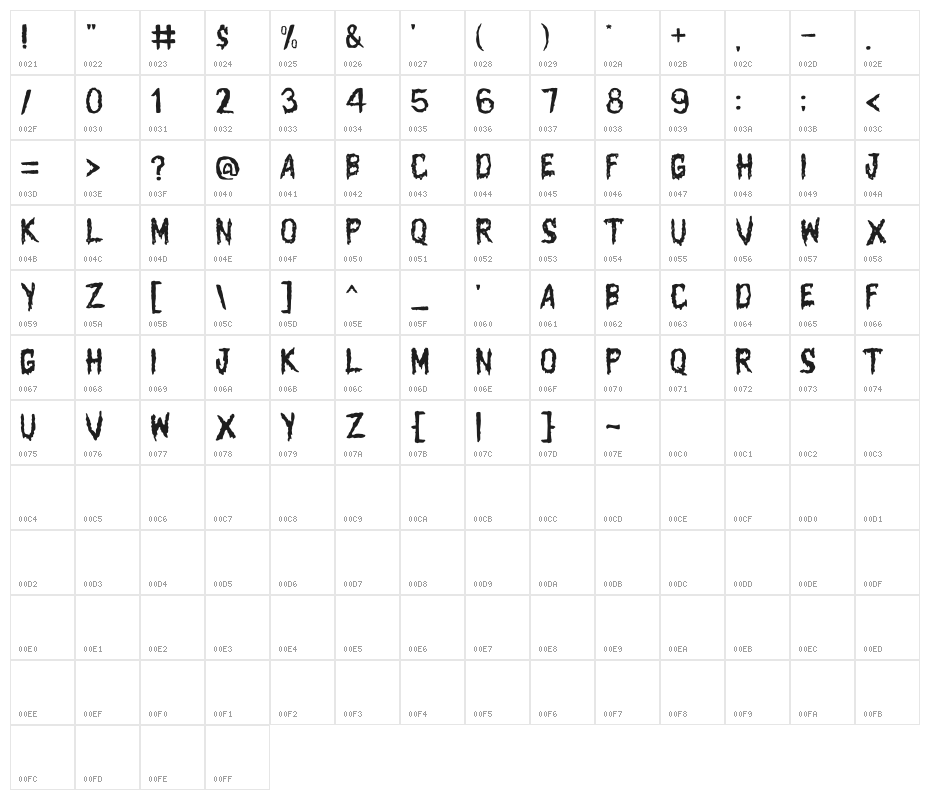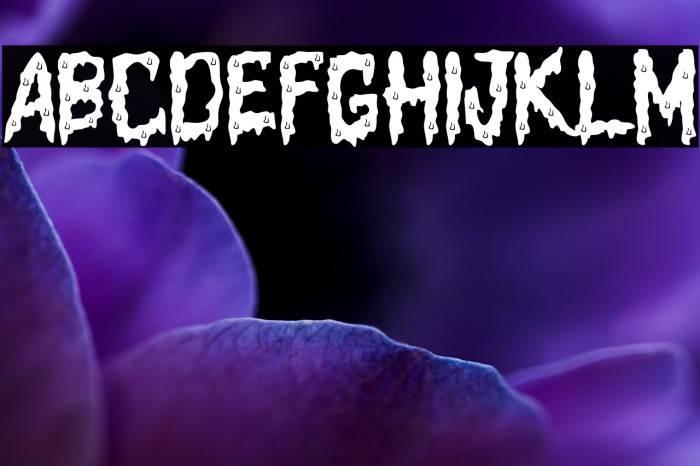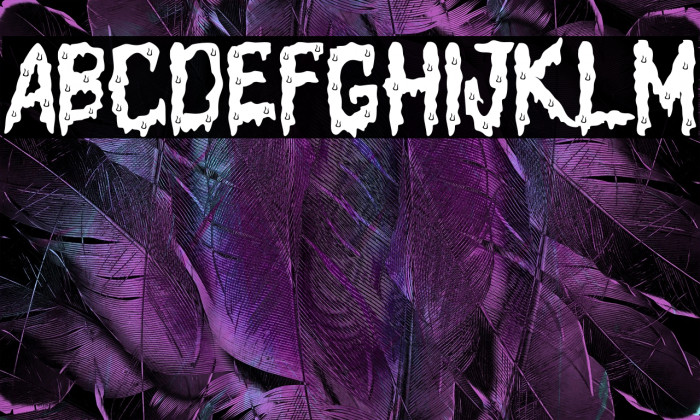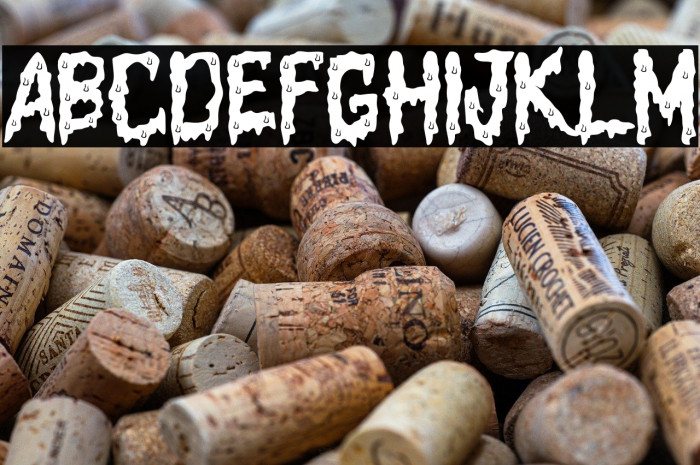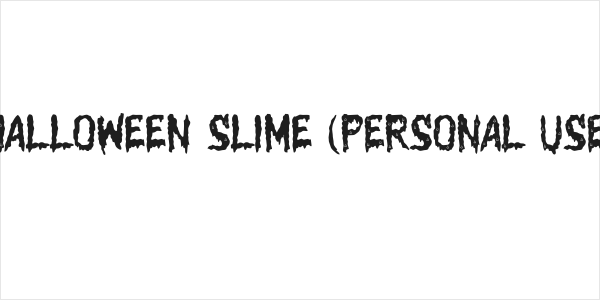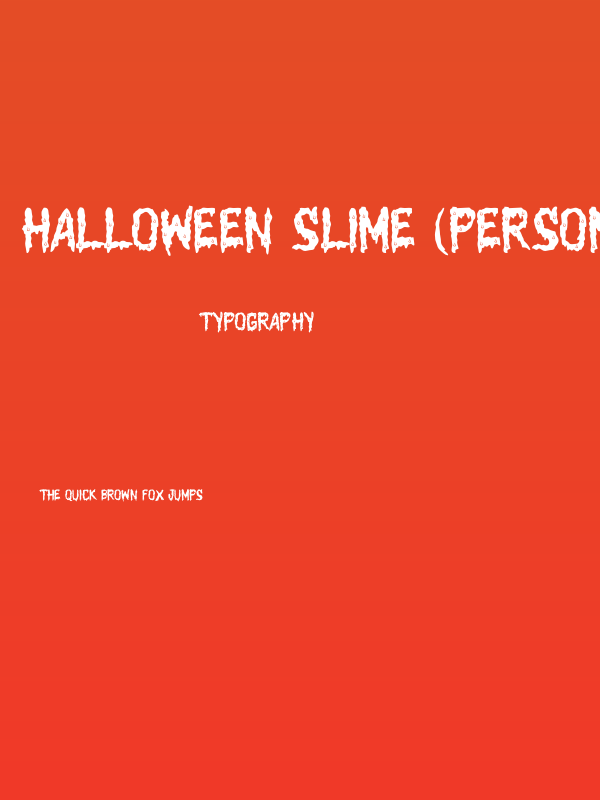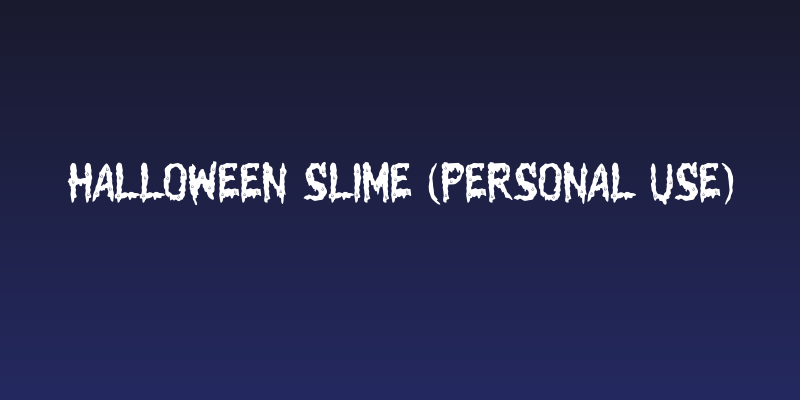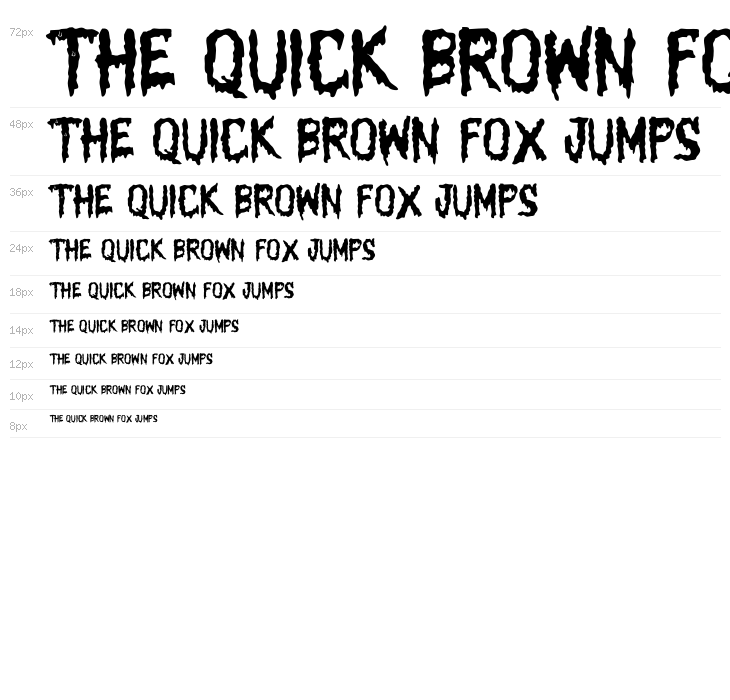
Halloween Slime (PERSONAL USE) Font
Halloween Slime (PERSONAL USE) Description
This font exudes a playful and spooky vibe, reminiscent of dripping slime or melting wax. The characters are irregular and jagged, with a unique texture that gives the impression of movement or fluidity. Each letter appears to be slightly different, adding to the organic and unpredictable nature of the design. This font is perfect for Halloween-themed projects or anything that requires a touch of the eerie and unusual. The bold and thick strokes ensure high visibility, making it suitable for headlines or titles that need to stand out.
| Proposed Projects | Ideal for Halloween invitations, horror movie posters, themed party decorations, and spooky event flyers. |